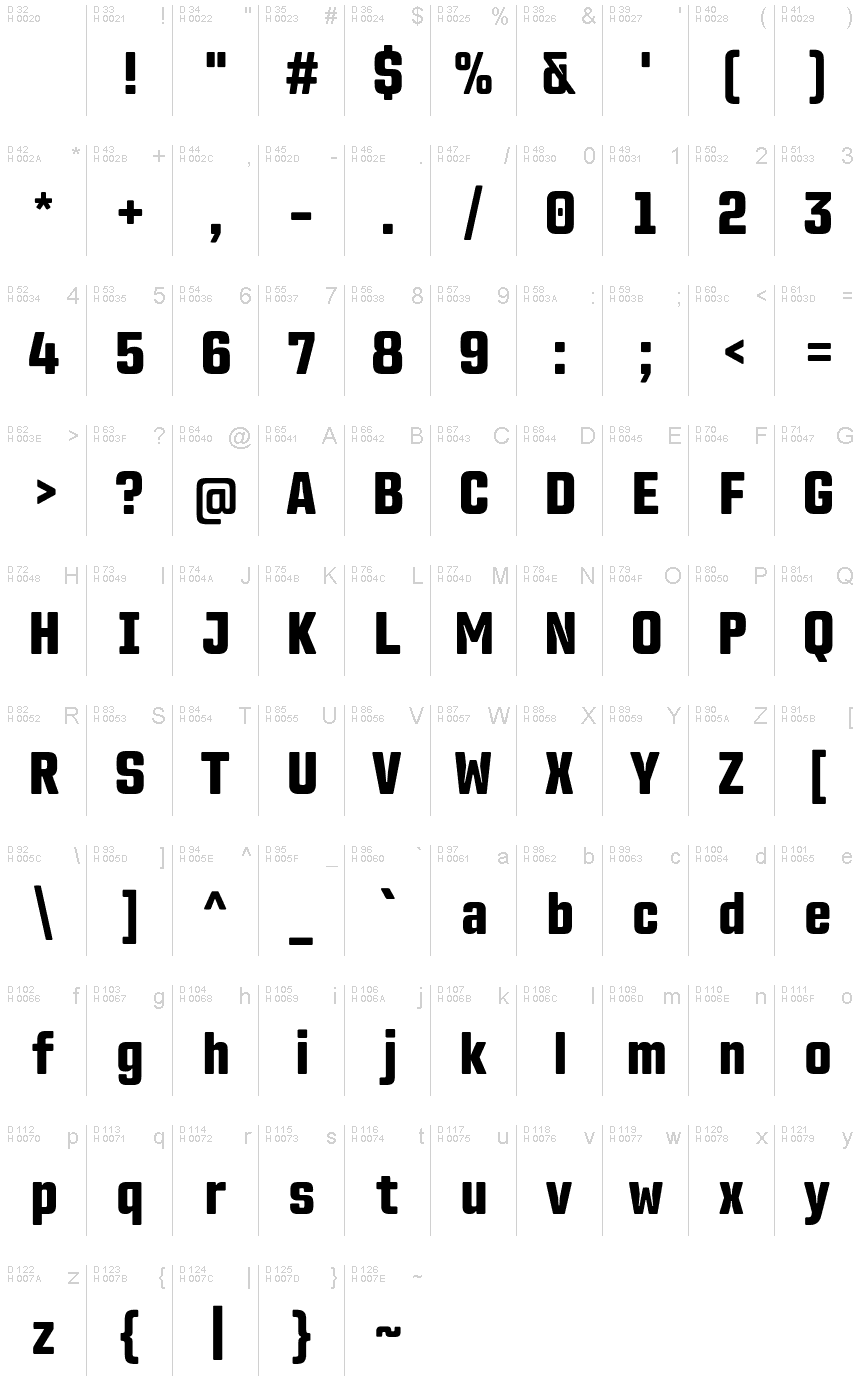
TT Lakes Neue Trl Cmd XBd
TT Lakes Neue Cmd XBd is a bold and condensed sans serif font that packs a punch. Created by the masterminds at TypeType Foundry, this font family is perfect for projects that require a modern, minimalistic look. With its condensed width, TT Lakes Neue Cmd XBd is an excellent choice for creating attention-grabbing headlines or bold logos. This versatile typeface can be used across various industries, including tech and fashion. Whether you're designing a website or creating print materials, TT Lakes Neue Cmd XBd will make your message stand out with its clean lines and bold presence.